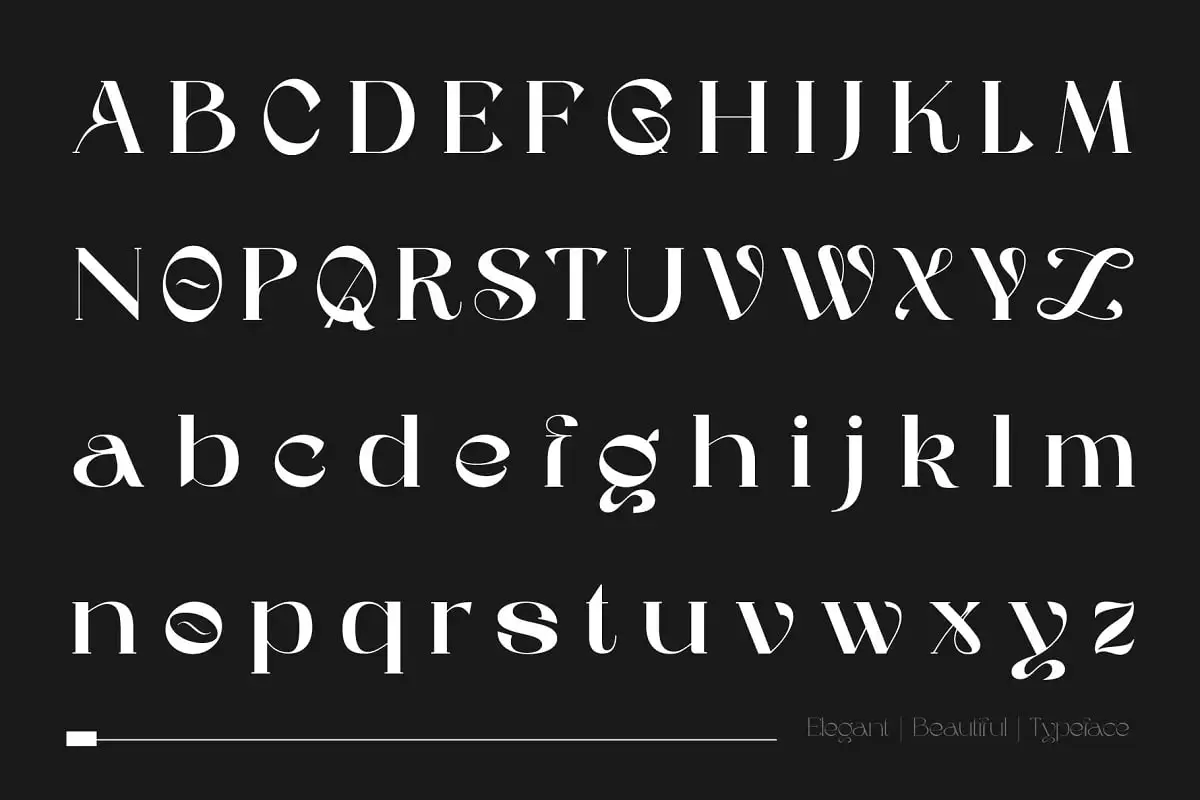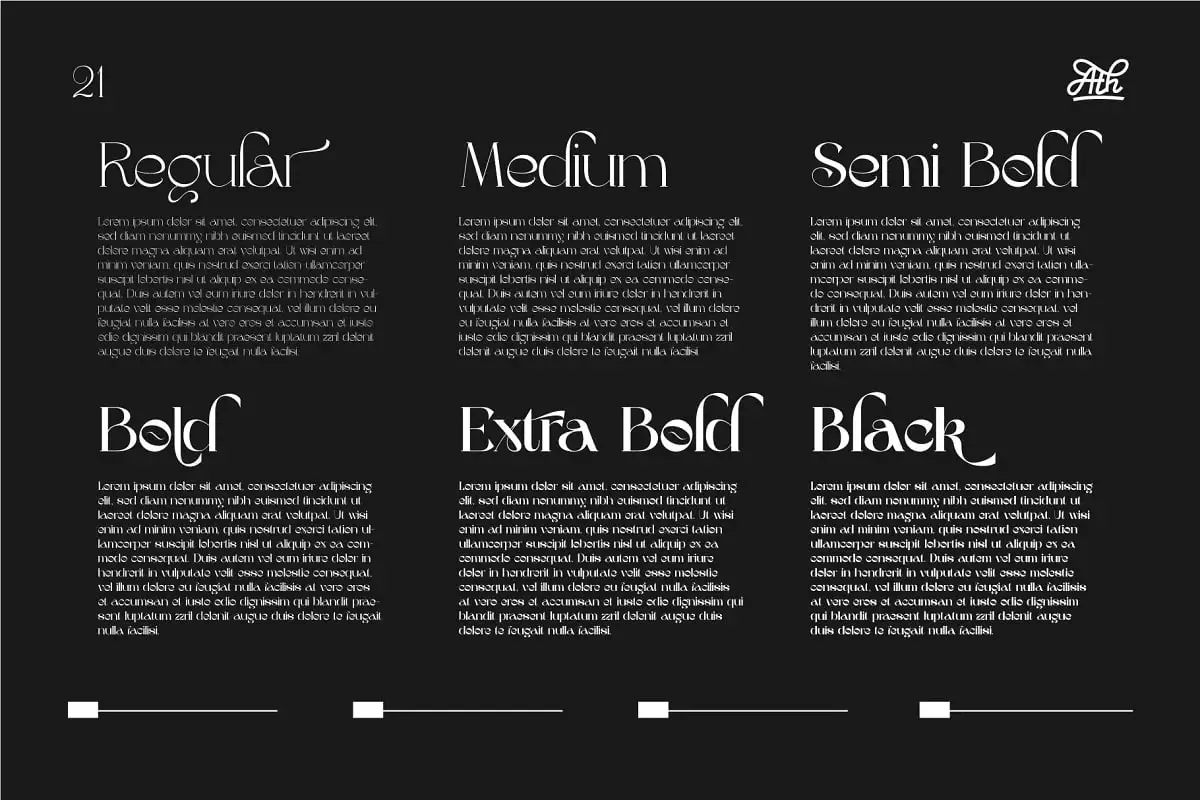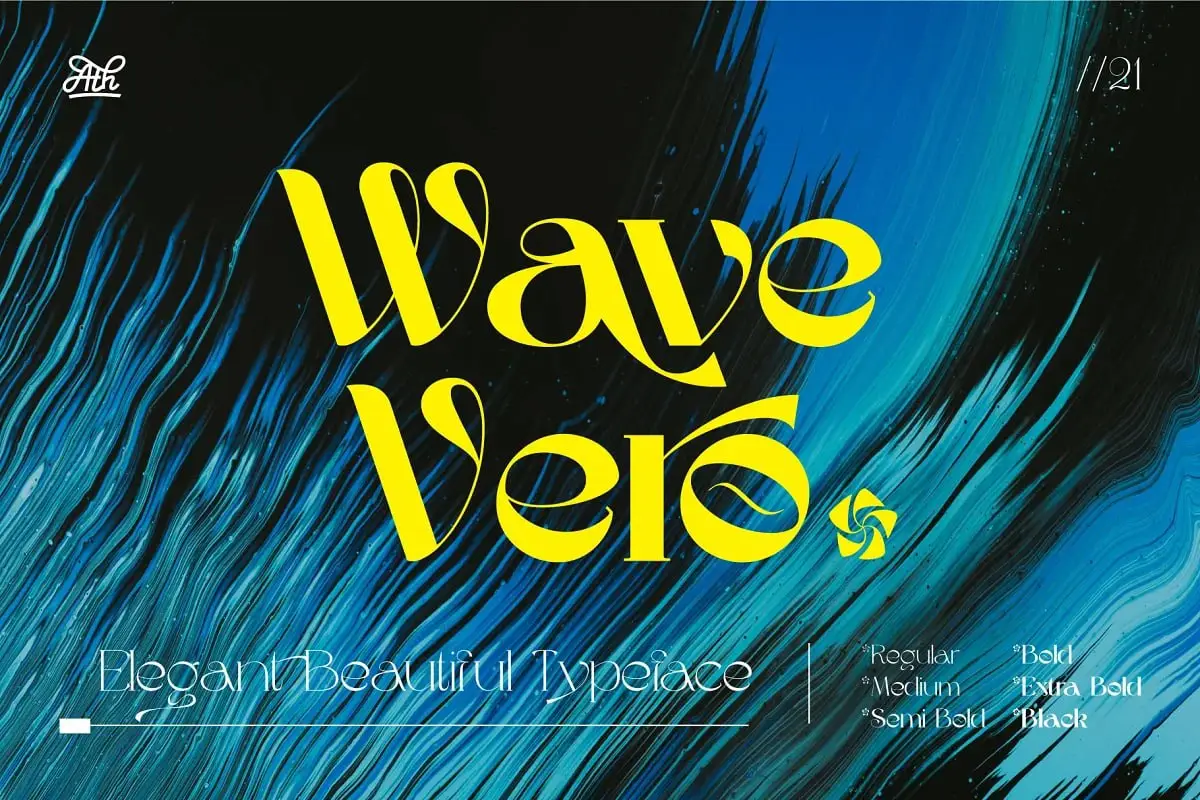
Wave Vero-Elegant Typeface
The Wave Vero-Elegant Typeface is a beautifully crafted font that combines modern elegance with a touch of sophistication. With its clean lines and stylish curves, this typeface is perfect for a variety of design projects.
• Weights: Light, Regular, Medium, Bold
• Ideal for branding and logo design
• Perfect for print materials such as brochures and business cards
• Great for web design and user interfaces